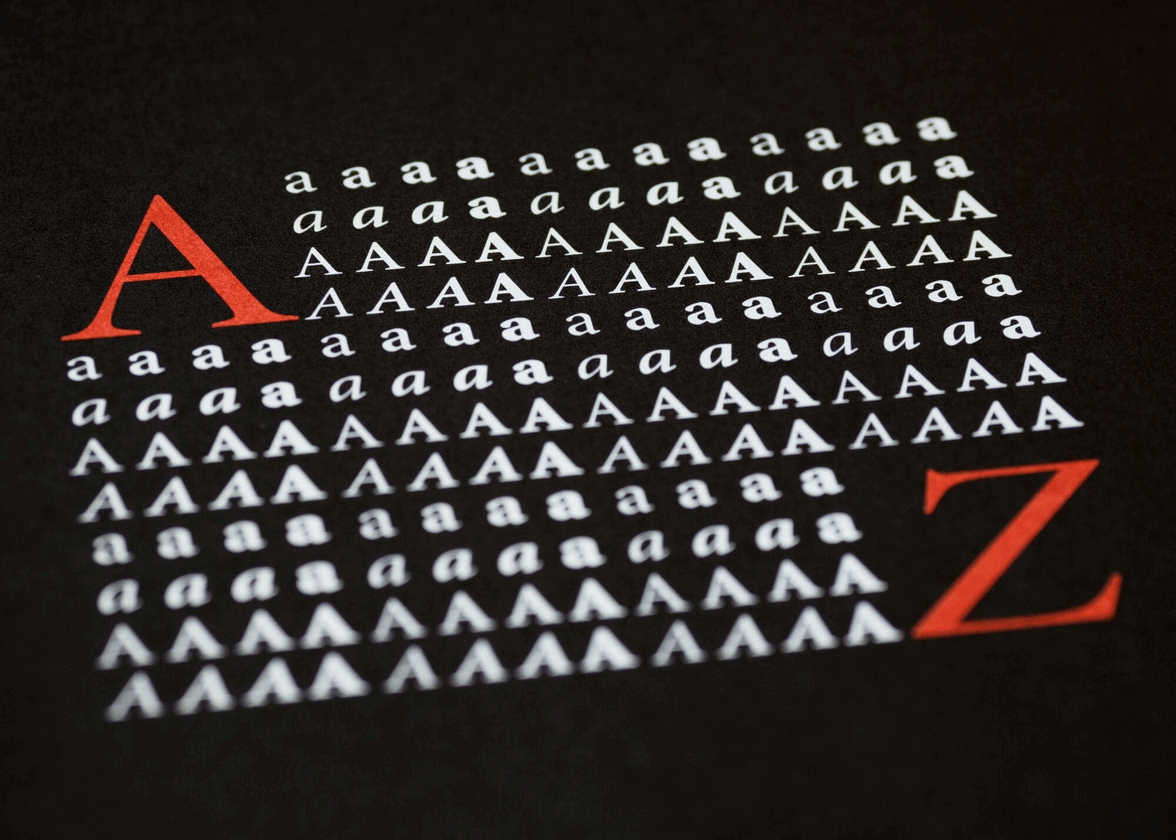
What Are the Best Fonts for a Logo?
It's not just colors that can give your logo personality. In fact, fonts can help you show your values and give a precise look to your brand image. But what are the best fonts for logos? What should you keep in mind when creating your logo so that it is a success?
What are the fonts used for on a logo?
Before we begin, let's take a moment to talk about the roles of fonts. According to their definition, a font is a complete set of typefaces in the same family. In other words, a font is a way of using letters with a precise aesthetic.
Fonts are used in logos with letters or numbers. For example, the name of a company. This is one of the components of your branding. That means, fonts are chosen to give a look to your logo, just like the type of icon or colors. Would Google have the same modern look if it had chosen a different font? Would Ford have been able to stand out from the competition by opting for a serious font? Fonts can help you show who you are at a glance.
What to keep in mind when you're looking for the perfect font
If you want to create a signature logo or a combined logo, you will need to find a font. Since there are hundreds of different fonts, here are a few things to keep in mind when searching. Do not hesitate to try several to find the one that best suits your needs and the idea you have for your logo.
An easy-to-read font
If you decide to use text in your logo, it's most likely because you want people to be able to read it. Therefore, the font you choose should be easy to read, at least be legible. It's true that some more extravagant or decorative fonts can help you stand out. But, if people can't read the text quickly, it's a waste of time. Also, check if the text is readable even when the size is small. This will help you have a flexible logo that can be used anywhere.
A font that represents you well
Then, we must not forget that as mentioned above, fonts are a part of your branding. They must therefore represent your company or its products. There are several types of fonts to help you show your values. For example, serif fonts are often used for traditional, luxurious, or serious sectors. On the contrary, sans serif fonts are considered by many to be modern and accessible. It's up to you to see what's best for your logo.
A font that is not too neutral
One mistake we frequently see is a simple or neutral font. It can be tempting to choose a plain font or one without character if your target audience is large. However, since every component in your logo is an opportunity to show your personality, it would be a missed opportunity if the font was plain. It is not necessary to choose a font with a lot of character, often a few small details can make a big difference. Again, we recommend trying out multiple fonts when creating your logo.
A font that is not used very much
In the same vein, some people may be tempted to choose a font that is already used by large companies. We do not recommend it. Just because you decide to use Netflix or Coca-Cola's font doesn't mean you'll gain some of their prestige. On the contrary, some might see it as an attempt at copying. Therefore, when you are looking for the perfect font, consider using a font that is not already overused.
Some great-looking font suggestions for your logo
For a professional look
If you want to give your logo a professional look, we recommend using fonts like: Cinzel, Judson and Bitter
Professional font examples - FreeLogoDesign
For a feminine look
If you prefer to emphasize softness and femininity, we recommend these fonts for your logo: La Belle Aurore, Croissant One, Pacifico
Feminine Font Examples
For a modern look
If you are a company working in the field of technology or want to show that you are a part of the latest trends, here are our font suggestions for a modern look: Arsenal, Fjalla One, and Spartan
Modern font examples
For a strong look
If you work in a very competitive field and you want to stand out by showing your strength and sturdiness, find fonts that could meet your needs: Bangers, Bungee and Monoton
Strong Look Font Examples
For a playful look
If you don't want your logo to look too serious or work in a more playful field, here's what we can offer: Baloo Bhai, Cherry Swash and Englebert
Playful font examples
In conclusion, we know that it can be a challenge to find the perfect font. However, remember that by choosing carefully, you will have a better logo. So, what are the best fonts for logos? In our opinion, a font that is easy to read, representative and not overused. If you want to know more about current trends for logos, do not hesitate to check out our article on the trends of 2023. Enjoy creating!